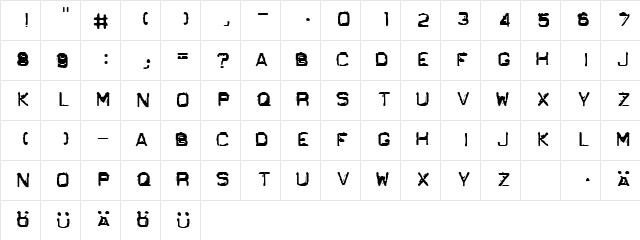
GF Ordner Inverted Normal
Design Context for GF Ordner Inverted Typeface
GF Ordner Inverted takes a measured approach to typography — its balanced proportions and neutral character make it a reliable workhorse for both digital and print work.